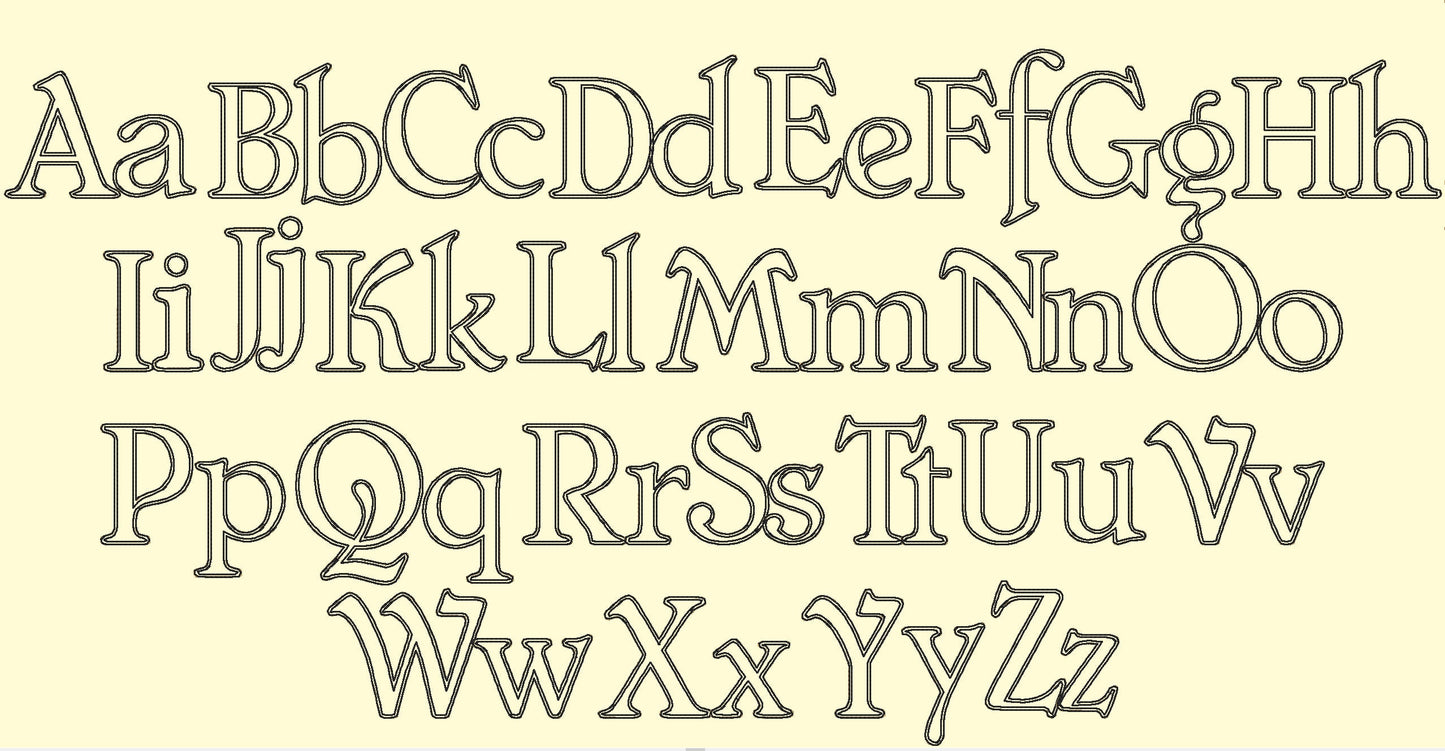
Classic Raggedy Edge Applique Font
Or click to open the linkA classic raggedy edge applique font: stitch, then trim the fabric for a soft frayed look. Cozy for names on quilts, pillows and kids' clothes.
Uppercase and lowercase letters, numbers 0 to 9 and punctuation in six sizes: 1.8, 2.2, 2.6, 3.3, 3.8 and 4.4 inches.
- Raggedy edge applique font
- Uppercase, lowercase, numbers 0 to 9, punctuation
- 6 sizes, 1.8 to 4.4 in